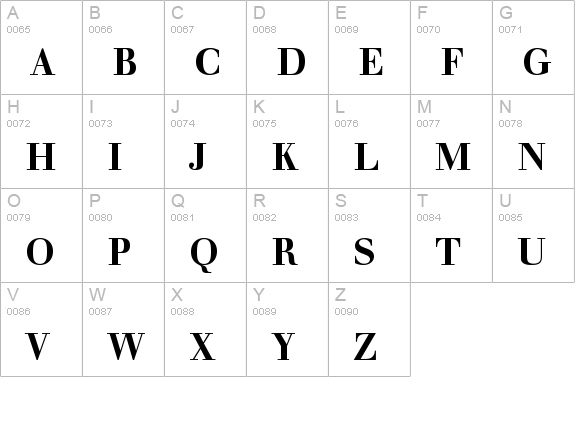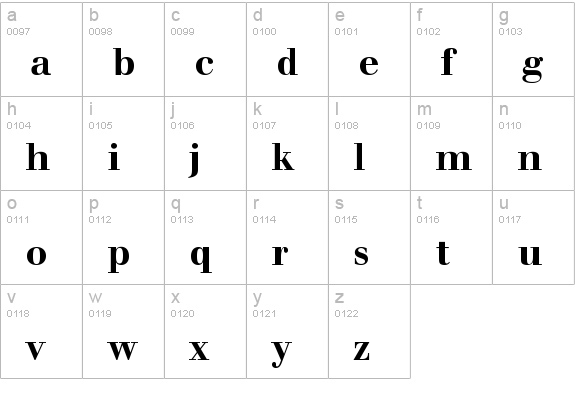
WalbaumEF-Medium Font Details
WalbaumEF-Medium is a balanced, medium-weight variant in the WalbaumEF typeface family \xE2\x80\x94 well suited to sub-headlines, navigation, and balanced editorial work.
WalbaumEF-Medium is a captivating font that effortlessly combines elegance with readability. Its timeless appeal and balanced proportions make it a perfect choice for a wide range of design projects, from editorial layouts to branding materials. With its medium weight, it strikes a harmonious balance between the bold and the delicate, making it versatile and adaptable to different styles and contexts. The clean lines and refined curves of WalbaumEF-Medium exude sophistication and professionalism, making it ideal for conveying a sense of authority and trustworthiness. Its classic yet modern aesthetic adds a touch of sophistication to any design, ensuring that your message is conveyed with clarity and impact. One of the notable features of WalbaumEF-Medium is its versatility in various sizes and applications. Whether used for headlines, subheadings, or body text, this font maintains its legibility and visual appeal. Its generous x-height and well-defined letterforms ensure that each character is easily distinguishable, even at smaller sizes. What makes WalbaumEF-Medium even more enticing is the fact that it is freely available to download at FontsMarket.com. This means that you can enjoy the benefits of this exceptional font without any cost. Whether you are a professional designer or an enthusiast, you can now access this remarkable typeface and elevate your designs to new heights. Don't miss out on the opportunity to add a touch of elegance and sophistication to your projects. Download WalbaumEF-Medium from FontsMarket.com and experience the beauty and versatility of this free font today.